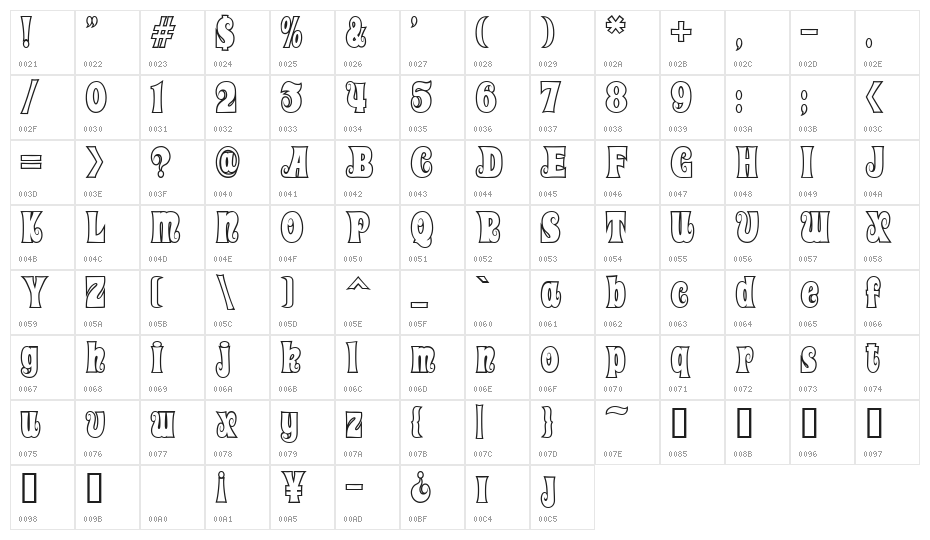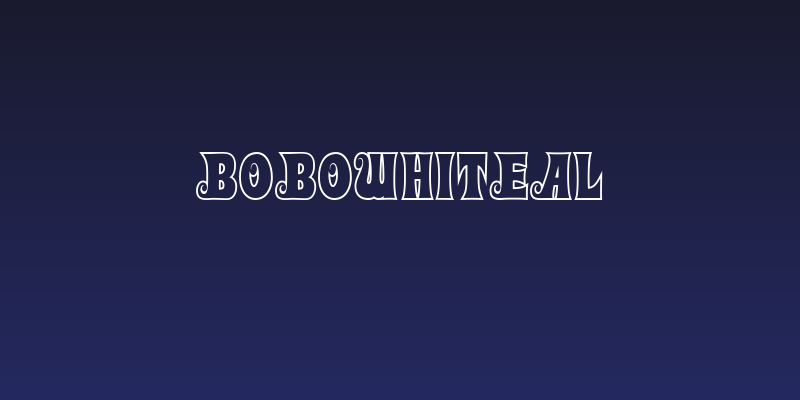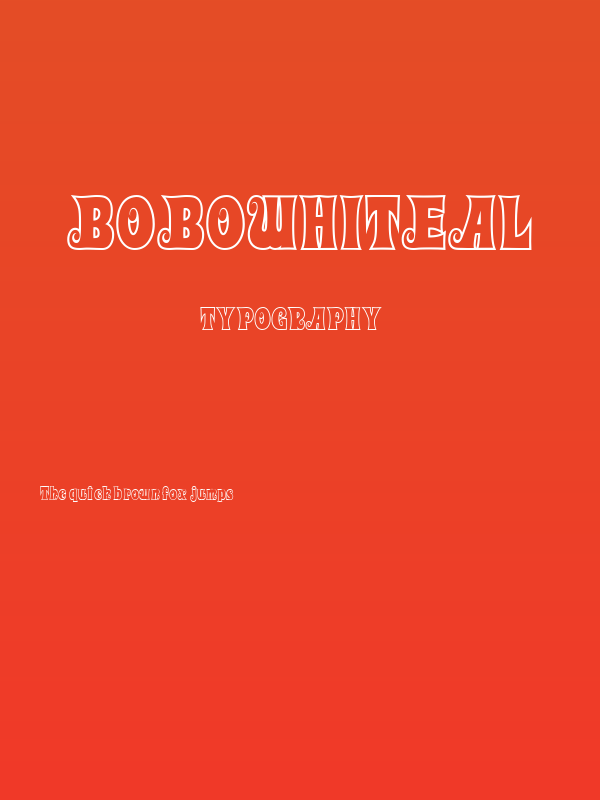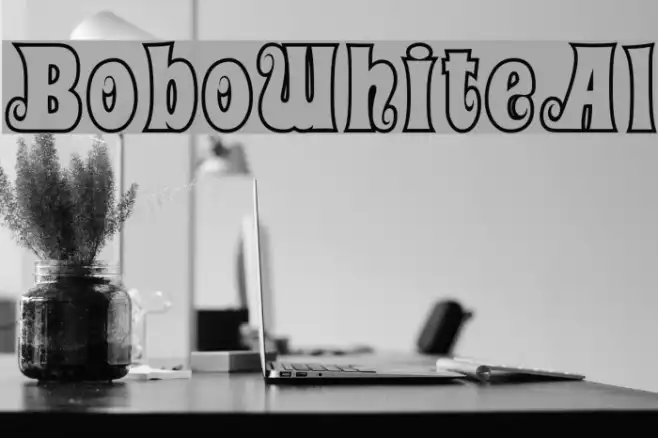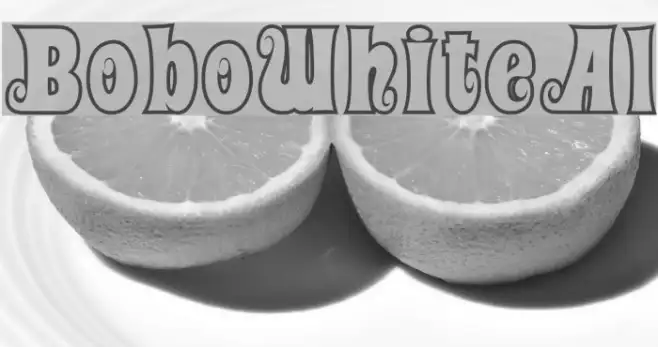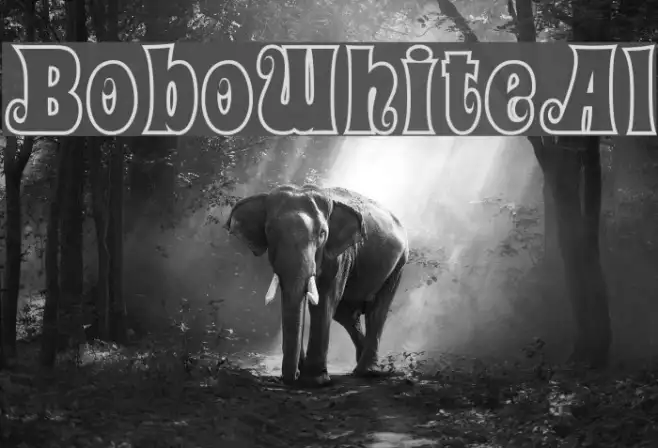
BoboWhiteAl Font
BoboWhiteAl Description
This font features a playful and whimsical design with bold, exaggerated curves and swirls. The characters are outlined, giving them a distinctive and eye-catching appearance. The uppercase letters are particularly ornate, with intricate details that add a sense of fun and creativity. The lowercase letters maintain the same playful style, ensuring consistency throughout the typeface. Numbers and special characters are included, each designed with the same bold and decorative flair. This font is perfect for projects that require a touch of whimsy and creativity.
| Proposed Projects | Great for children's book covers, playful branding, party invitations, and creative posters. |